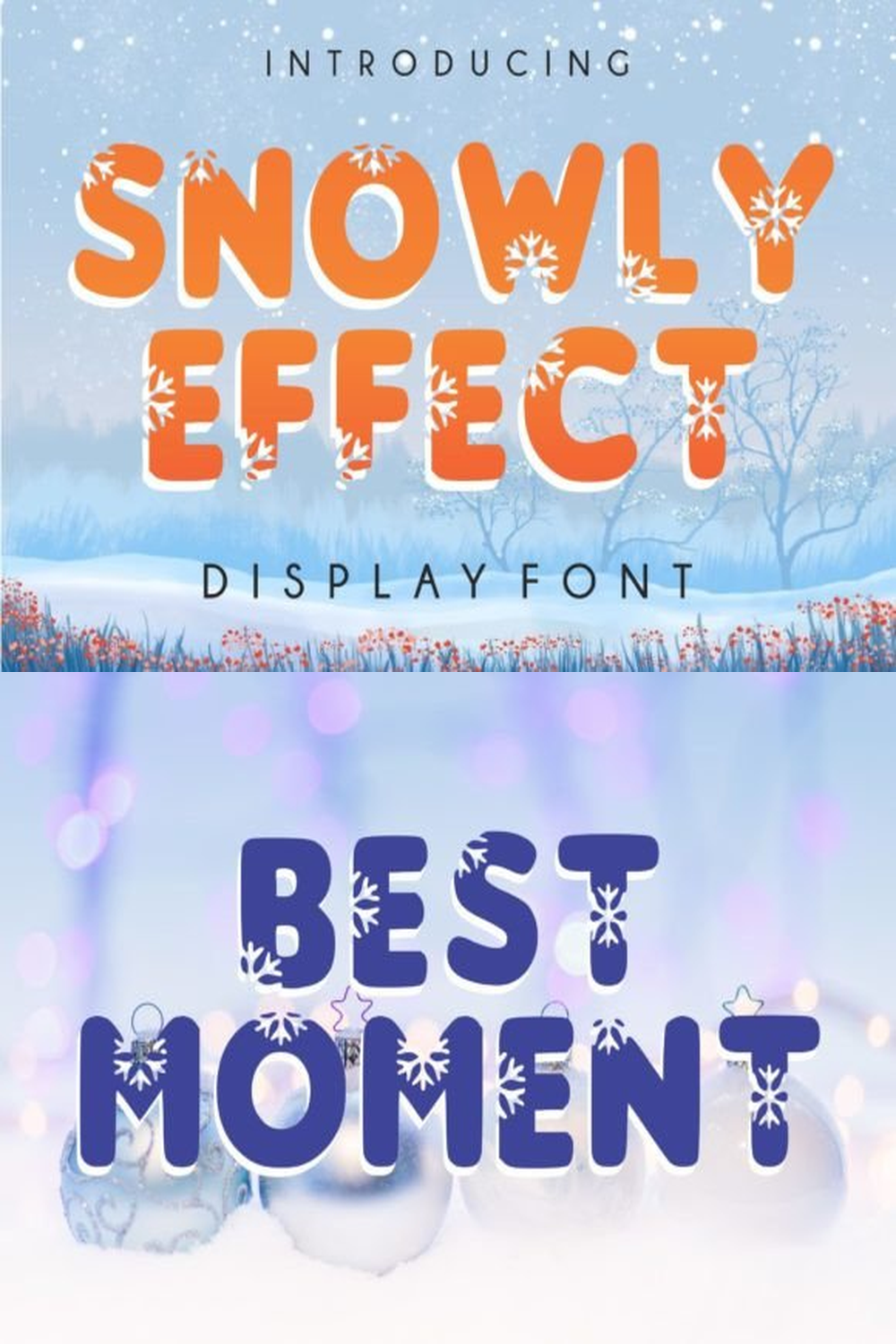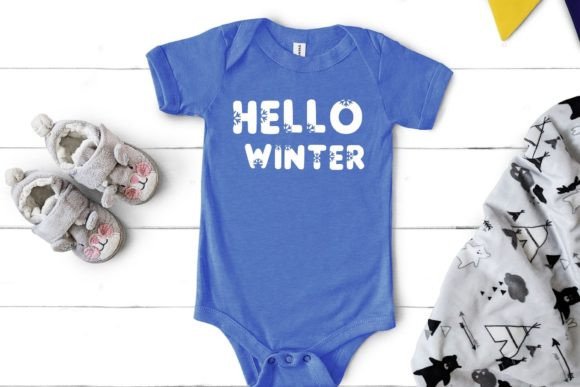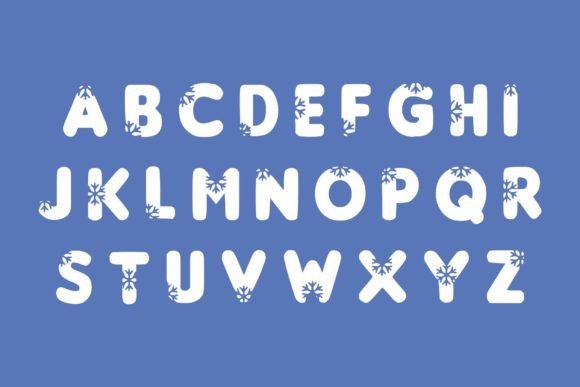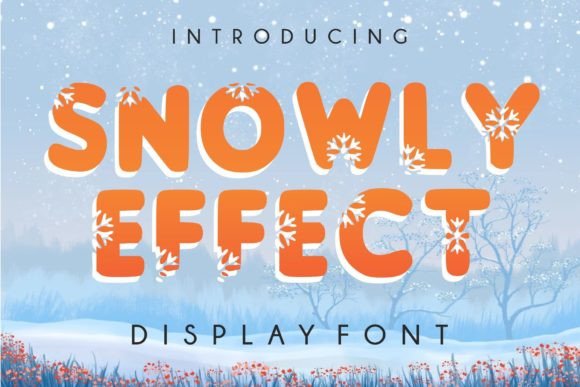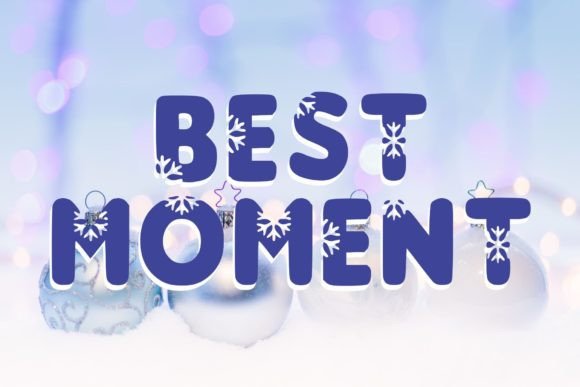
Snowly Effect Font
About the Snowly Effect Font
Presenting Snowly Effect Font, a unique and stylish typeface that will make your work stand out. Snowly Effect is a crafty and snowy display font. Each of its letters is covered in snow, making it the ideal font for any winter project! It is the perfect choice for any children’s activity, Christmas, Thanksgiving, poster, etc
Snowly Effect Font Usage Examples